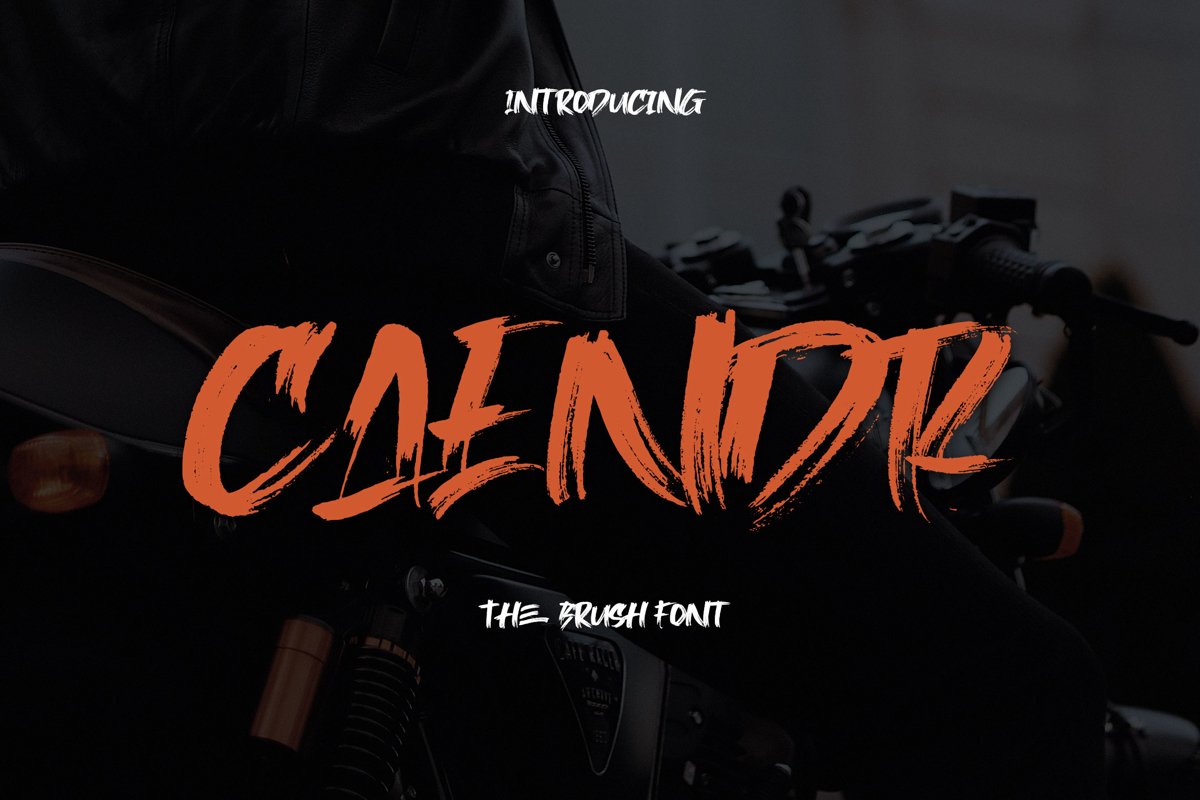
Caendr - Brush Font
Caendr
Caendr is handbrush font, hand-drawn typeface. It has a elegant, classy look and cool. It’s a great font for fashion,
apparel projects, signature, album cover, logo, branding, magazine, social media, & advertisements,
but also works great for other projects.
• Basic Latin A-Z and a-z
• Symbols